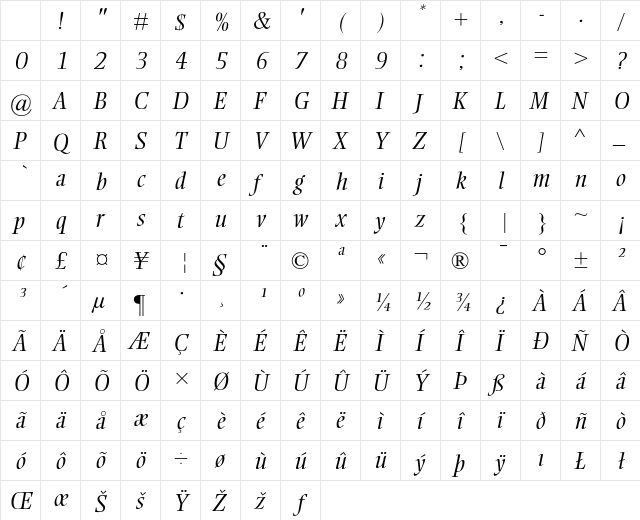
Ellington is a composed and adaptable typeface that performs quietly and consistently across a wide range of design contexts. The slanted form adds forward momentum and visual energy. Its slender proportions lend an understated elegance to any composition.
Pro Tip: Use Ellington for emphasis, pull quotes, and subheadings where its slanted energy can add rhythm to the layout.